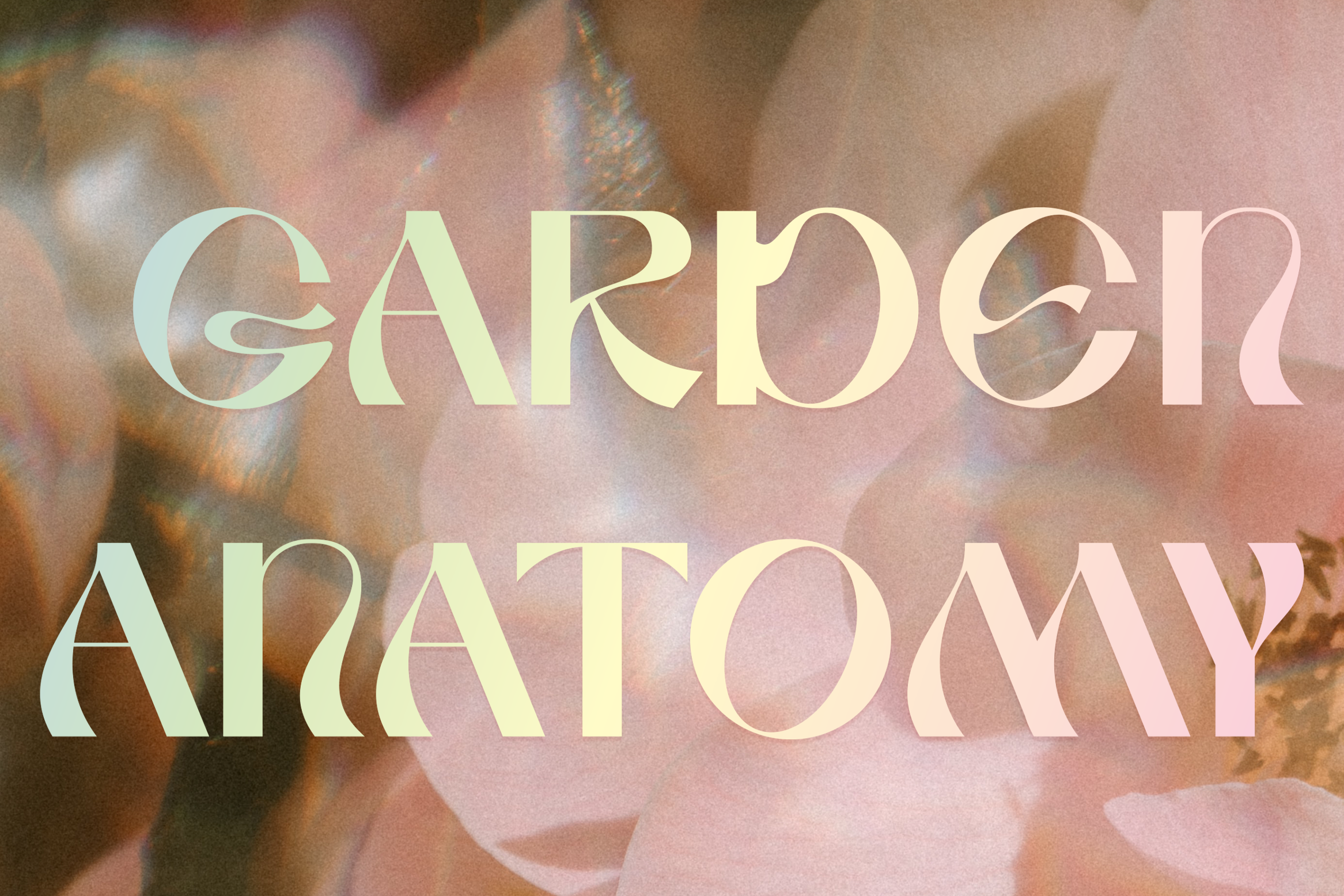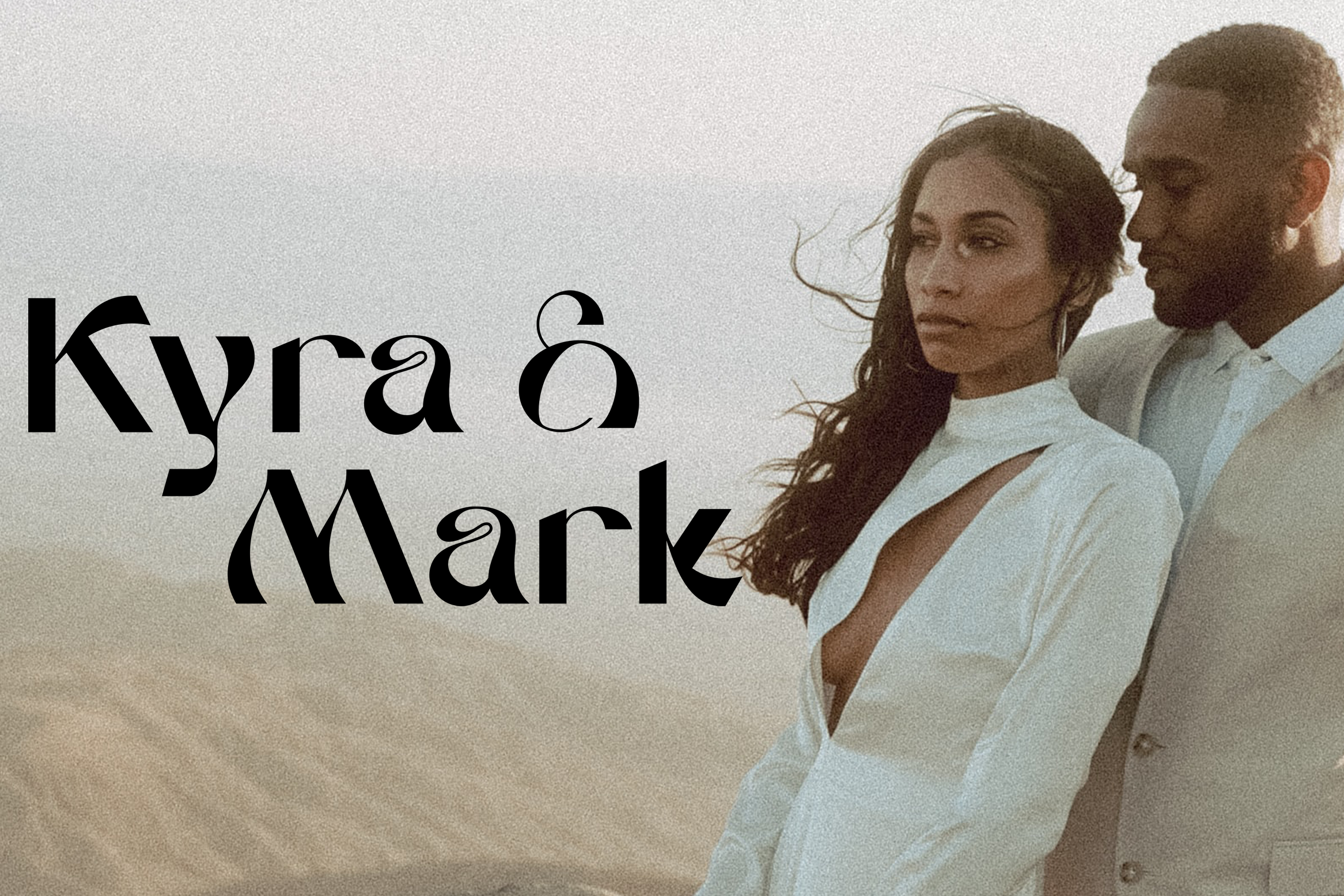
Raks // Display Font
Meet our new font "Raks"! These eye-catchy letters work great for headings and logos. If you would like to add some vanguard touches to your design, then this font is for you! Bold and curvy lines of "Raks" will give dramatic look for nearly any text from magazine headers to product emblems.